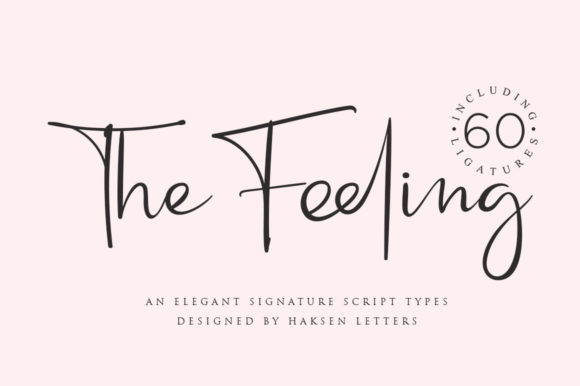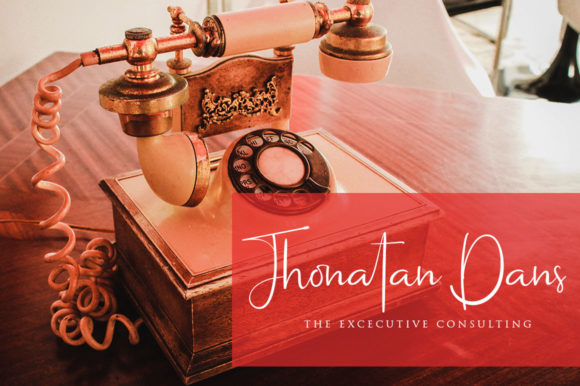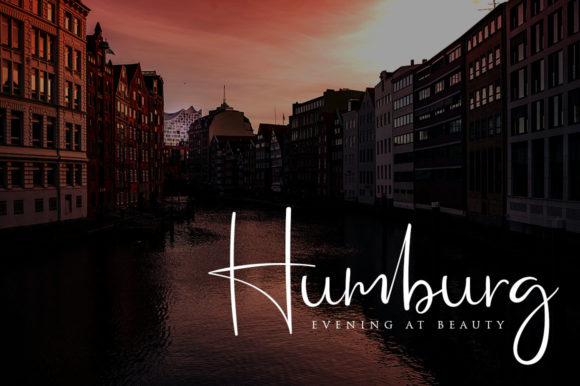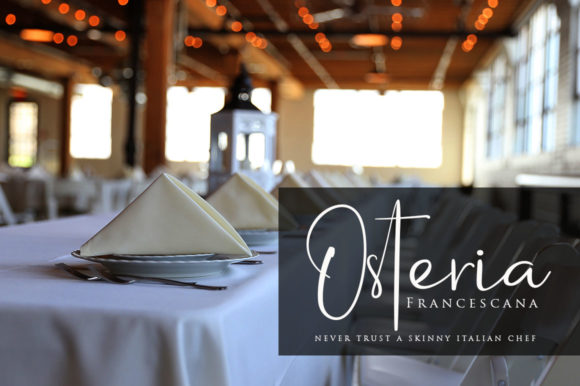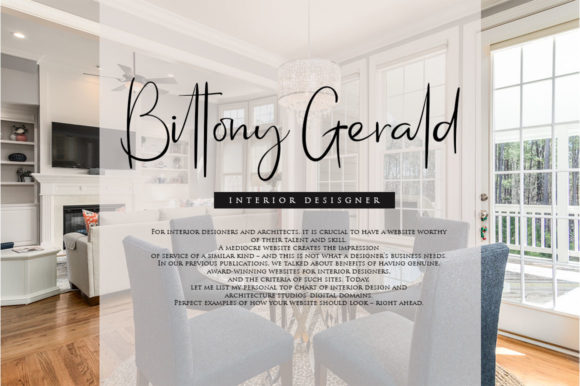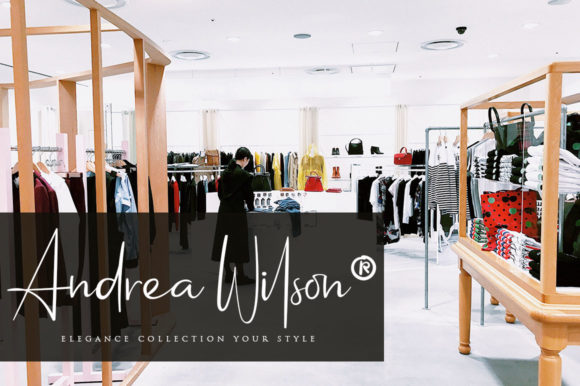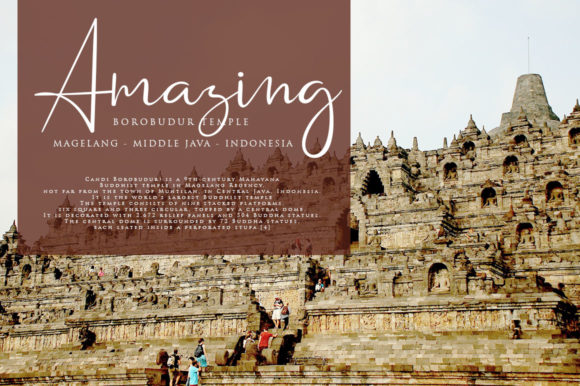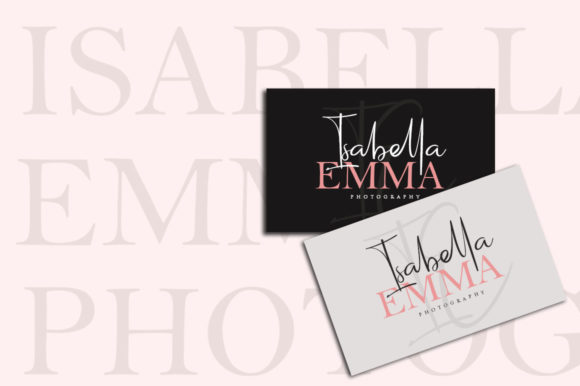
HomeScript FontsThe Feeling Font Script Fonts The Feeling Font FacebookXPinterestWhatsApp The Feeling Font Poster 2 The Feeling Font Poster 3 The Feeling Font Poster 4 The Feeling Font Poster 5 The Feeling Font Poster 6 The Feeling Font Poster 7 The Feeling Font Poster 8 About The Feeling Font The Feeling is a light and smart handwritten font. Fall in love with its timeless elegance. DOWNLOAD ON CREATIVE FABRICAThis font is sold and delivered by Creative Fabrica. Font Canyon may earn a commission if you buy through this link. People also explored Cream Soda Font beloved script Christmas Shepherd Font Monday Delight Font Lollijoy Blizzard Font Cute Love Font Tetemco Font Thin Brush Font Wowsers Font 348 0 TagsThe Feeling Font Previous articleDigmuse FontNext articleHelio Font LEAVE A REPLY Cancel reply Comment: Please enter your comment! Name:* Please enter your name here Email:* You have entered an incorrect email address! Please enter your email address here Website: Save my name, email, and website in this browser for the next time I comment. Personal Use Free Goodline Font Personal Use Free Read more about this font Rheiborn Personal Use Free Read more about this font Foo Personal Use Free Read more about this font Eva Personal Use Free Read more about this font BLOG How to Cut Any Font on Cricut: Convert a Font to SVG (Free) Turn any font into a clean SVG so it cuts crisp on Cricut - a quick 3-step workflow using a free font-to-SVG tool. The 10 Best Handwriting Fonts to Add Personality to Your Designs Exploring Font Trends Free Fonts Risk: Why Free Fonts Can Be Dangerous for Designers